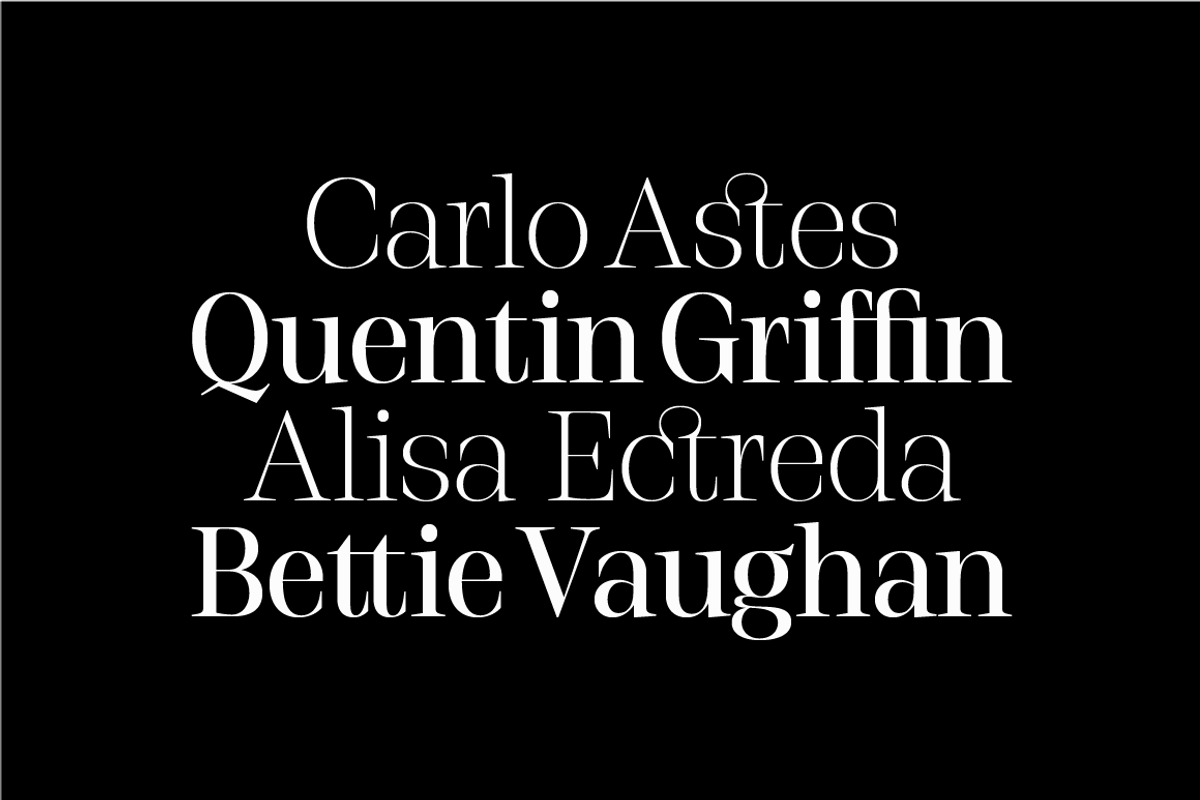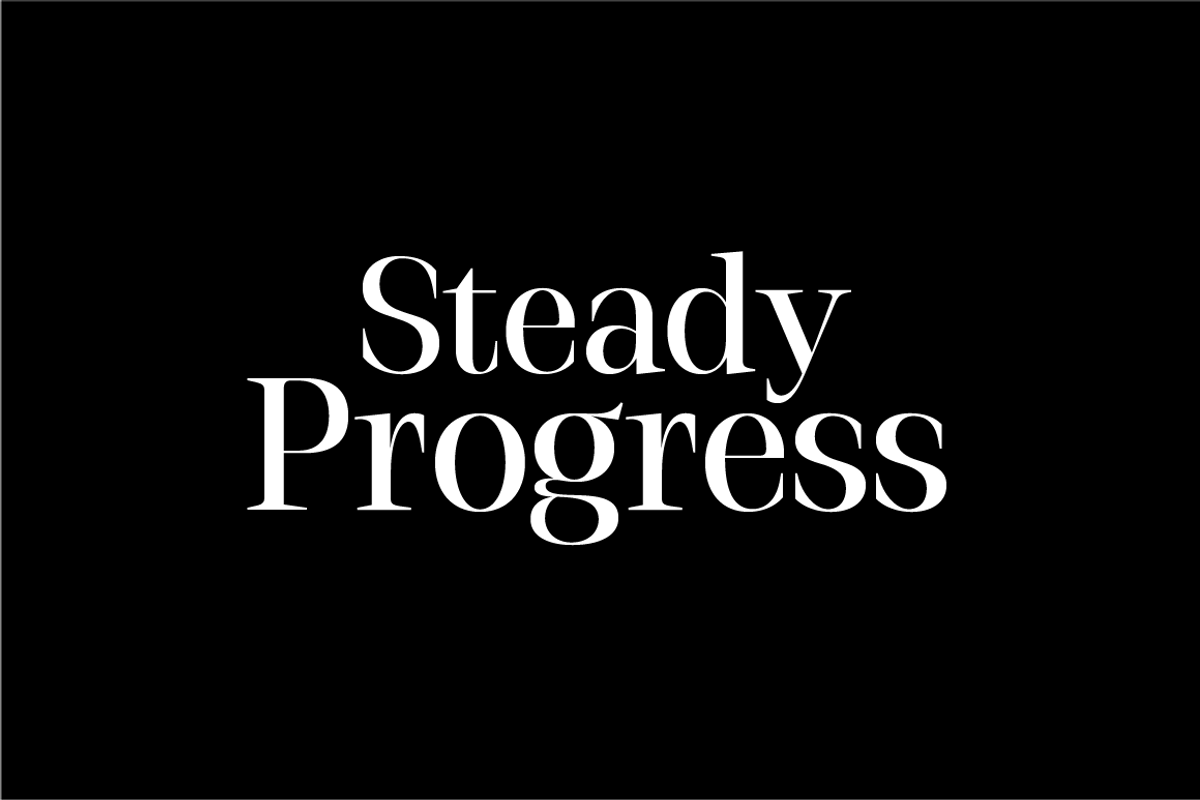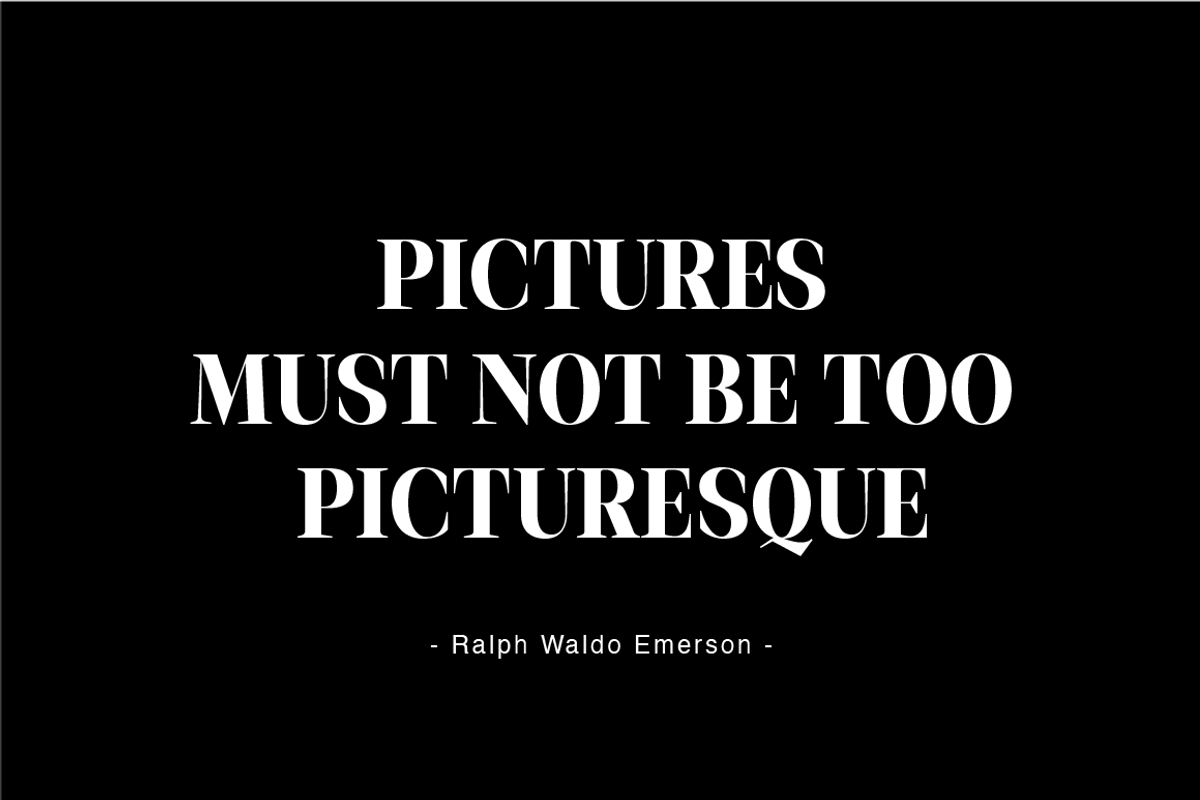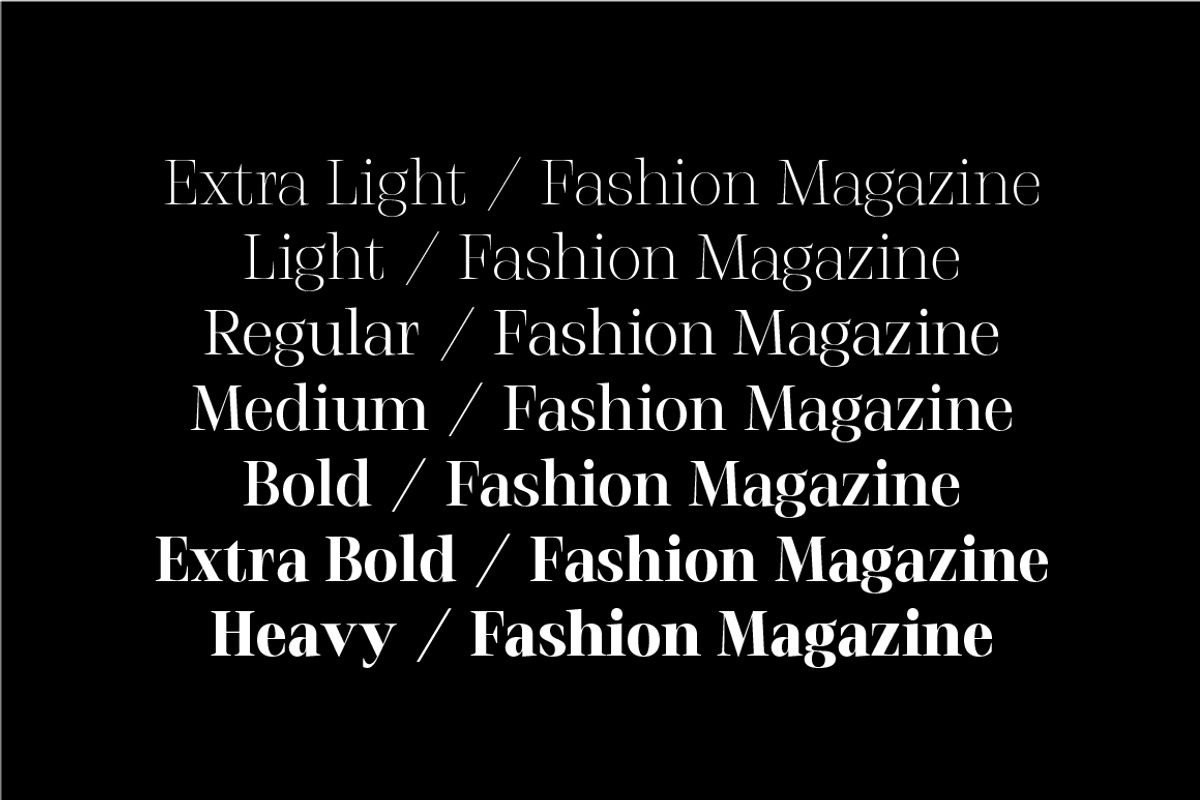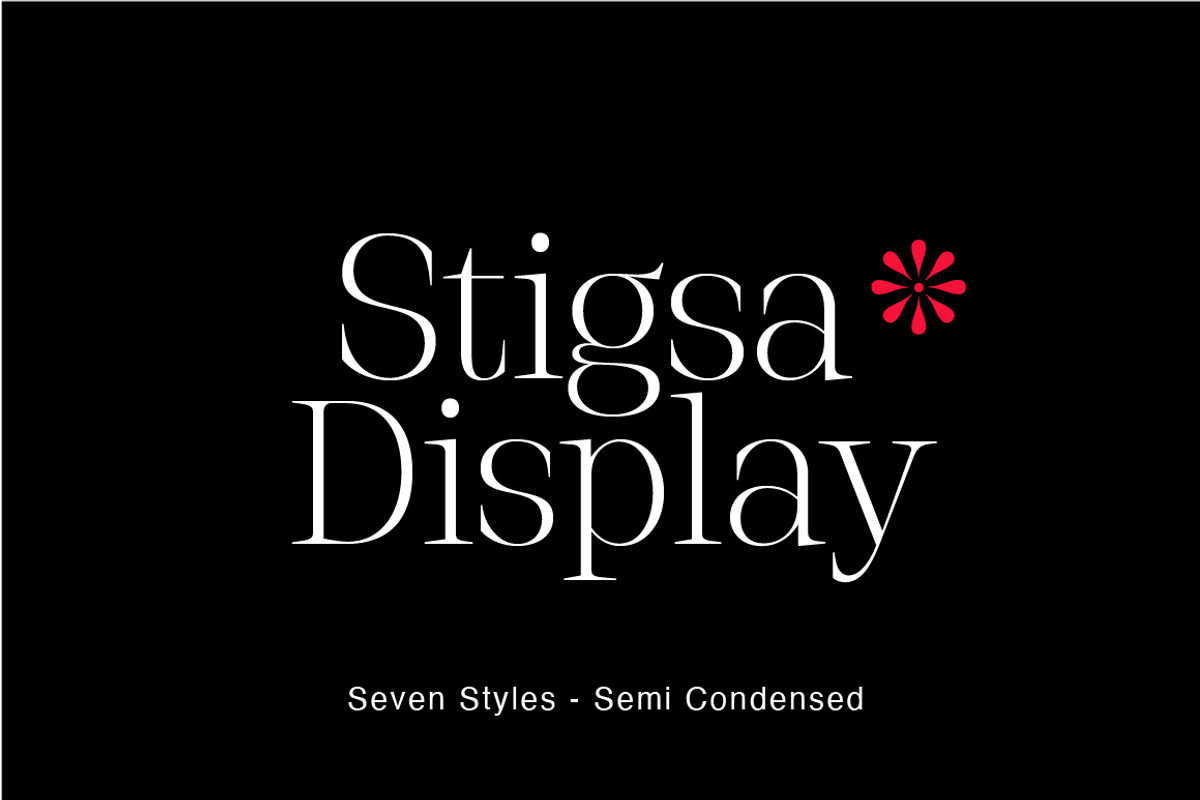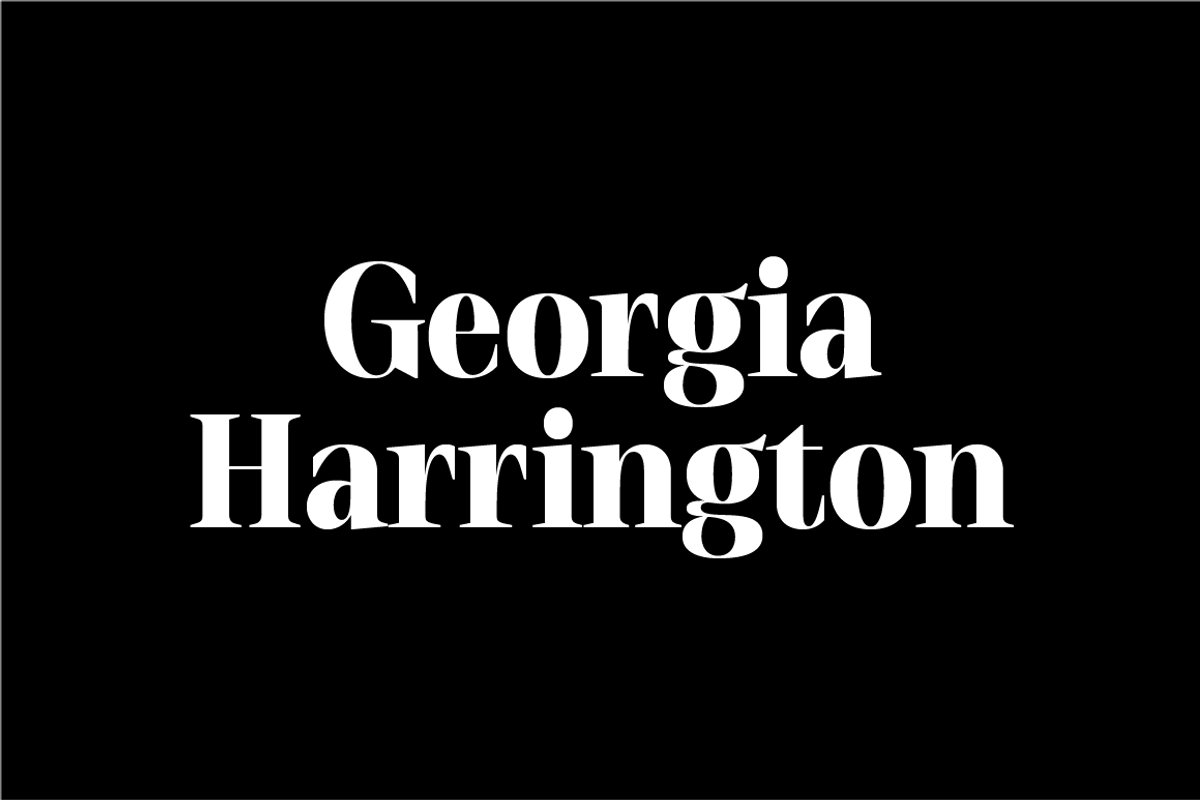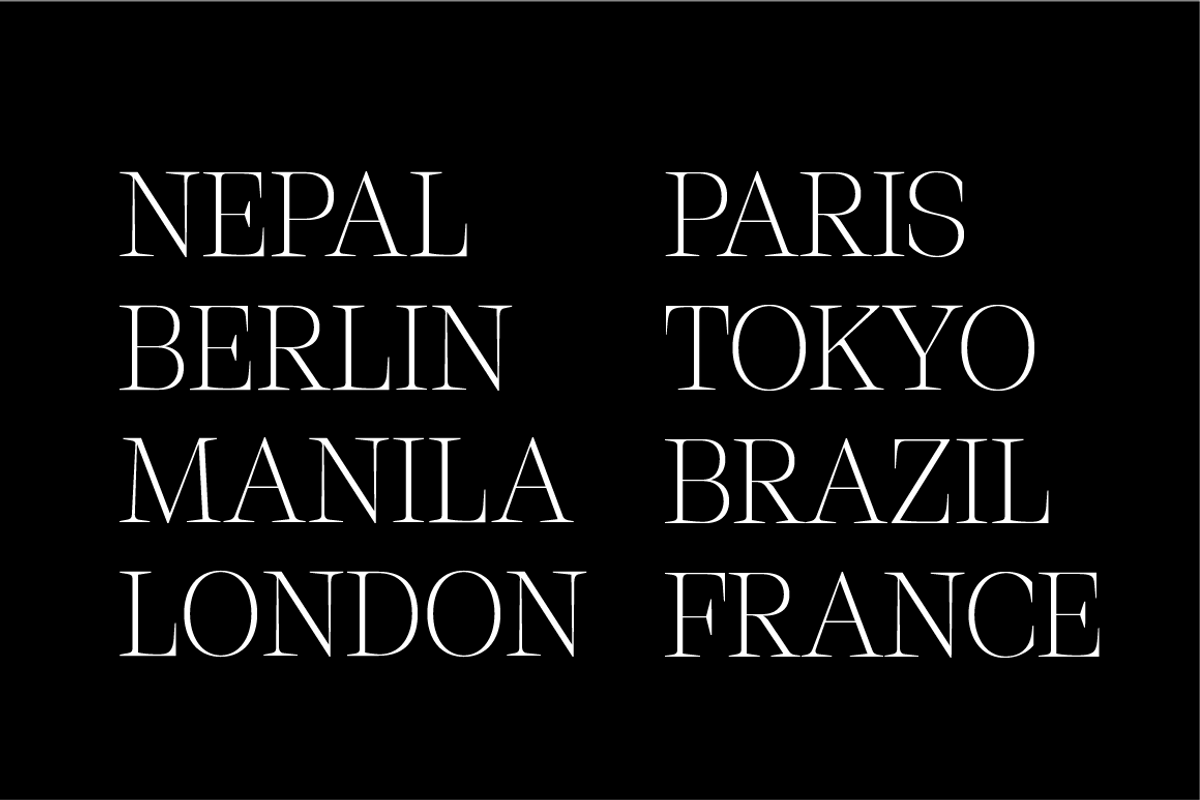
Stigsa Semi Condensed
Stigsa Semi Condensed is a high-contrast typeface inspired by transitional and contemporary typefaces. A vertical stress with sharp serifs, delicate and legible. Stigsa Display family consist of 7 fonts. With 1143 glyphs each. The typeface high contrast designed for use in big text sizes and medium sizes. Via the OpenType features allow for the implementation of typographic niceties such as small caps, tabular figures and oldstyle figures, ligatures, case-sensitive, fractions and extended language support.